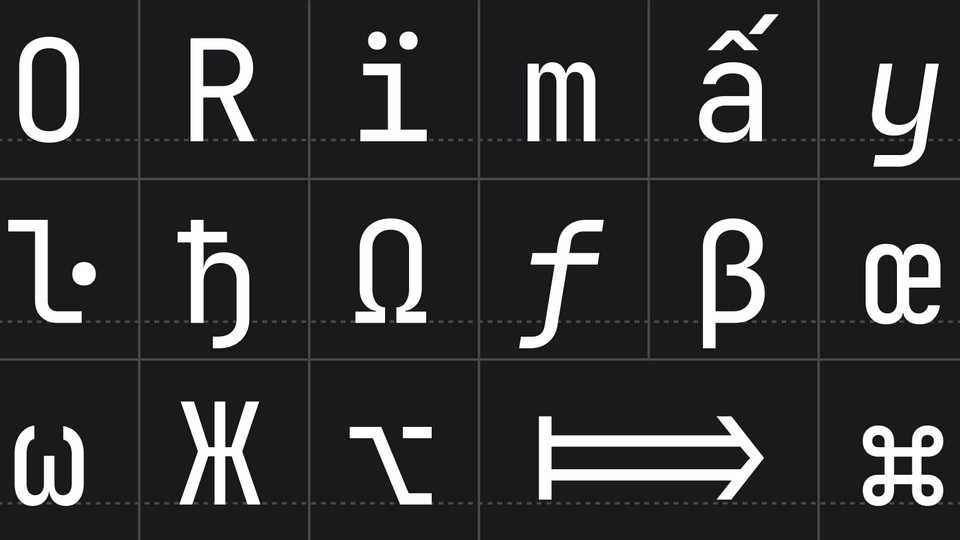
Download NKDuy Mono font, a monospaced typeface made for developers. There are 8 font styles available in NKDuy Mono, from Thin to ExtraBold, each coming with its own Italic version.